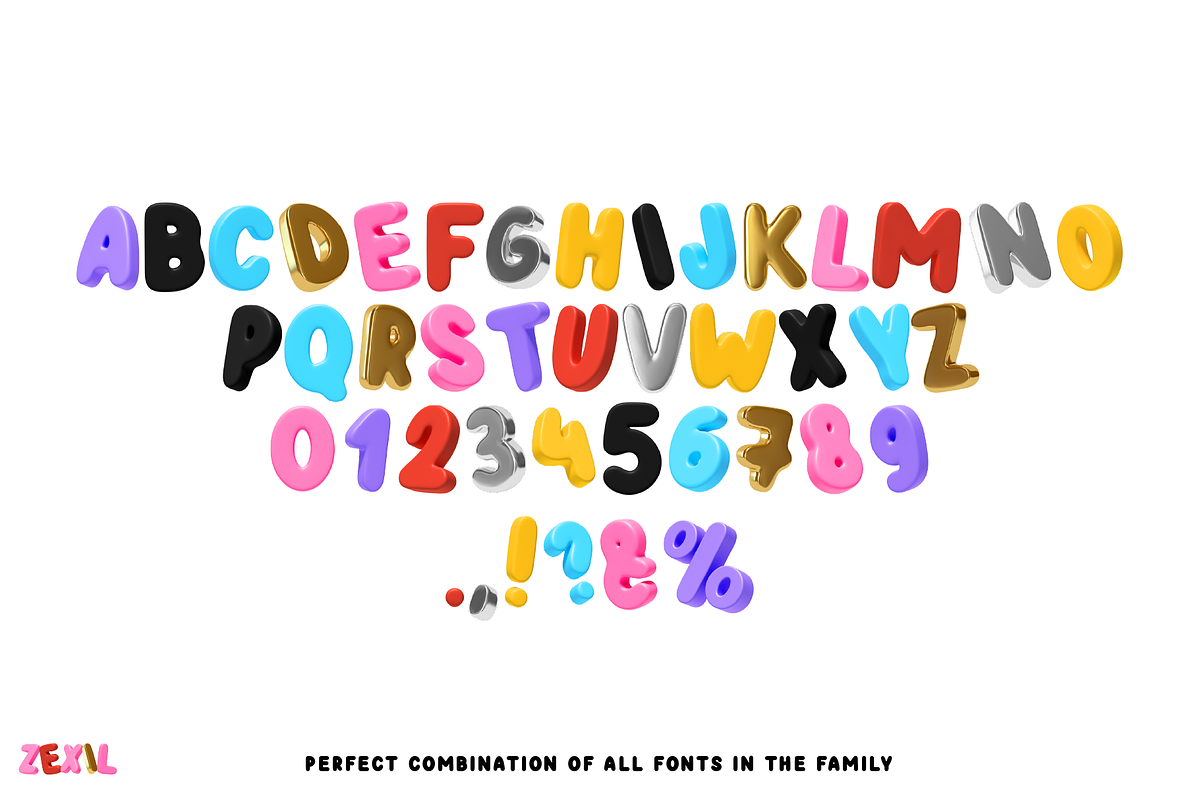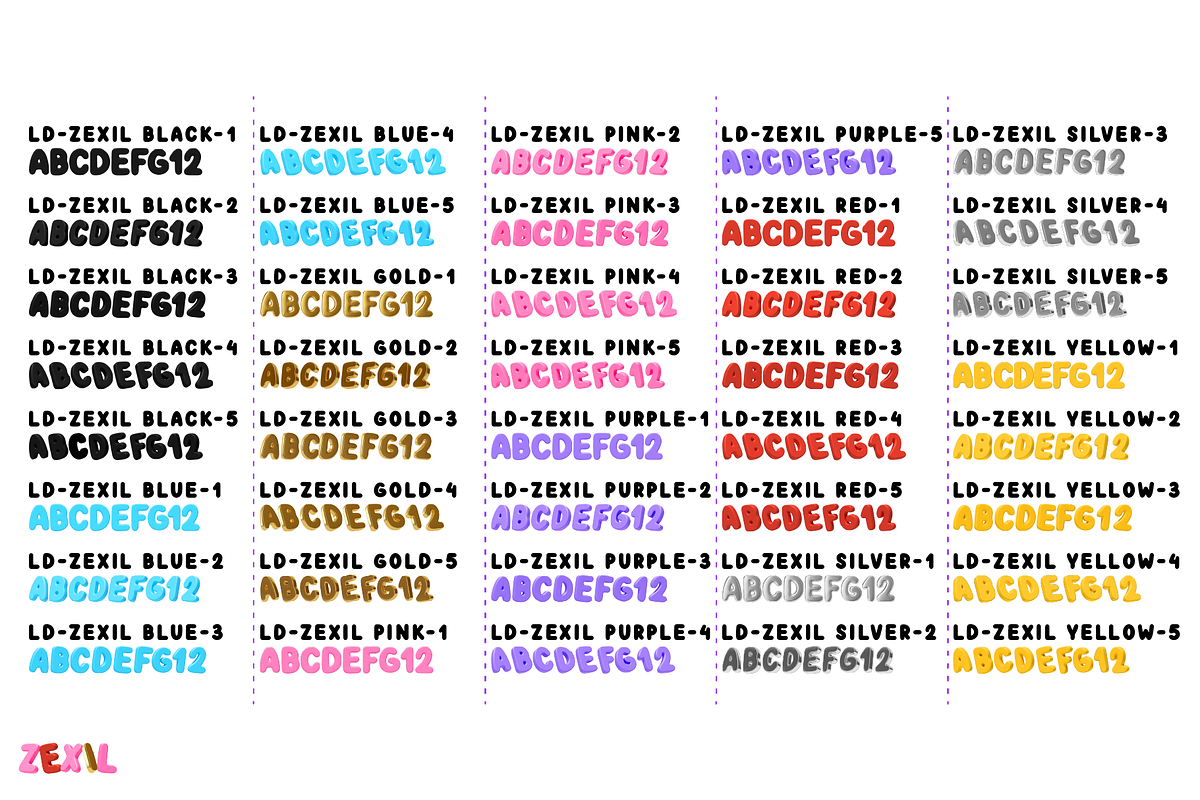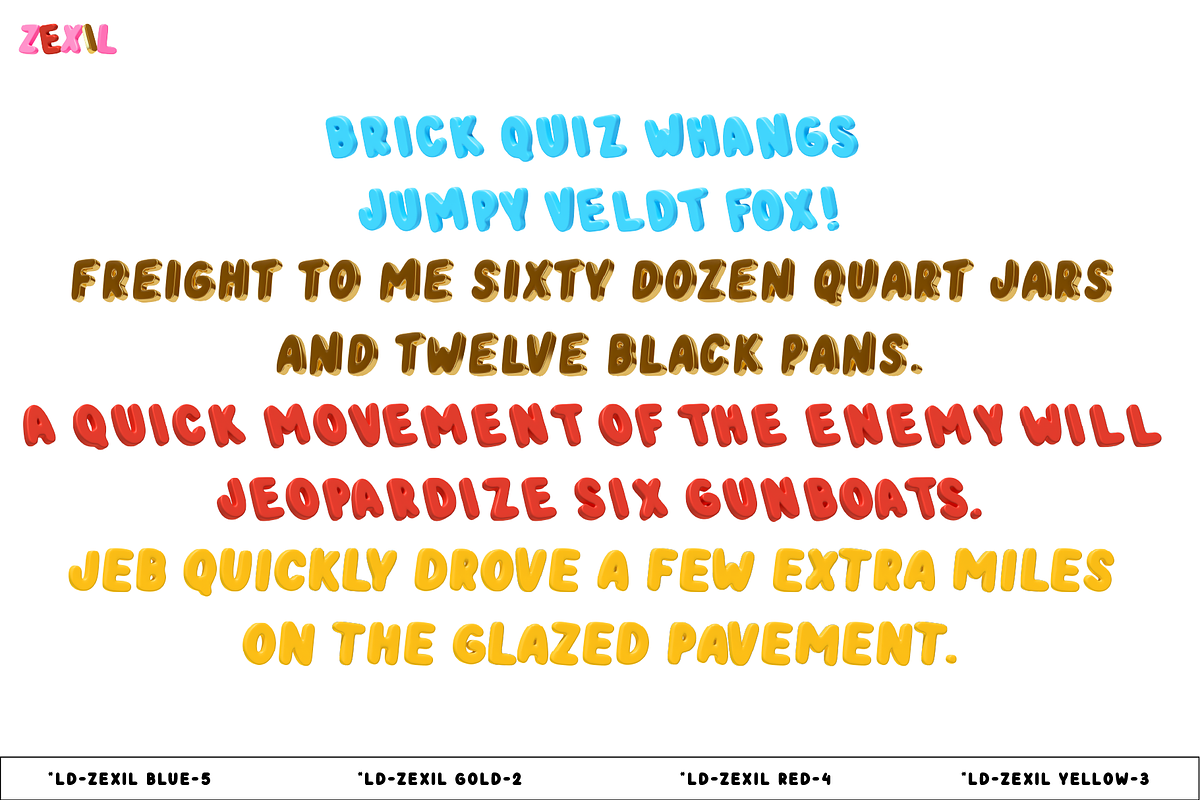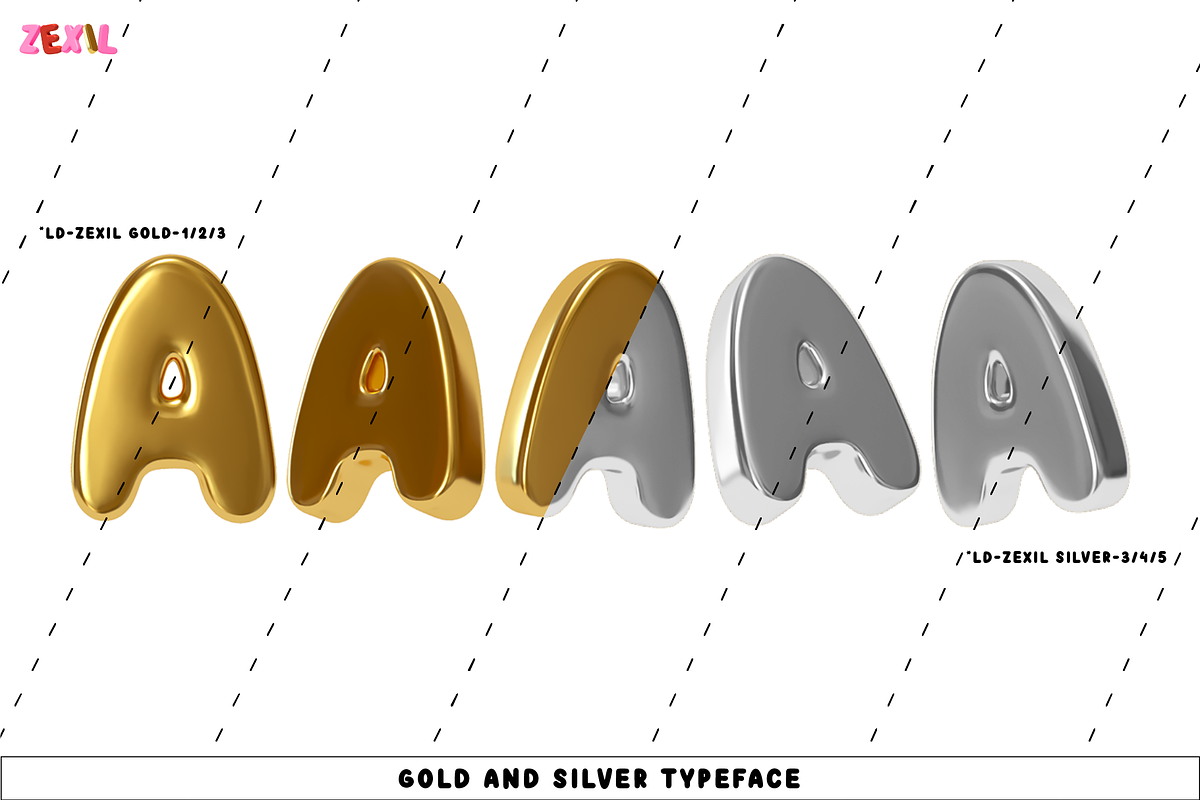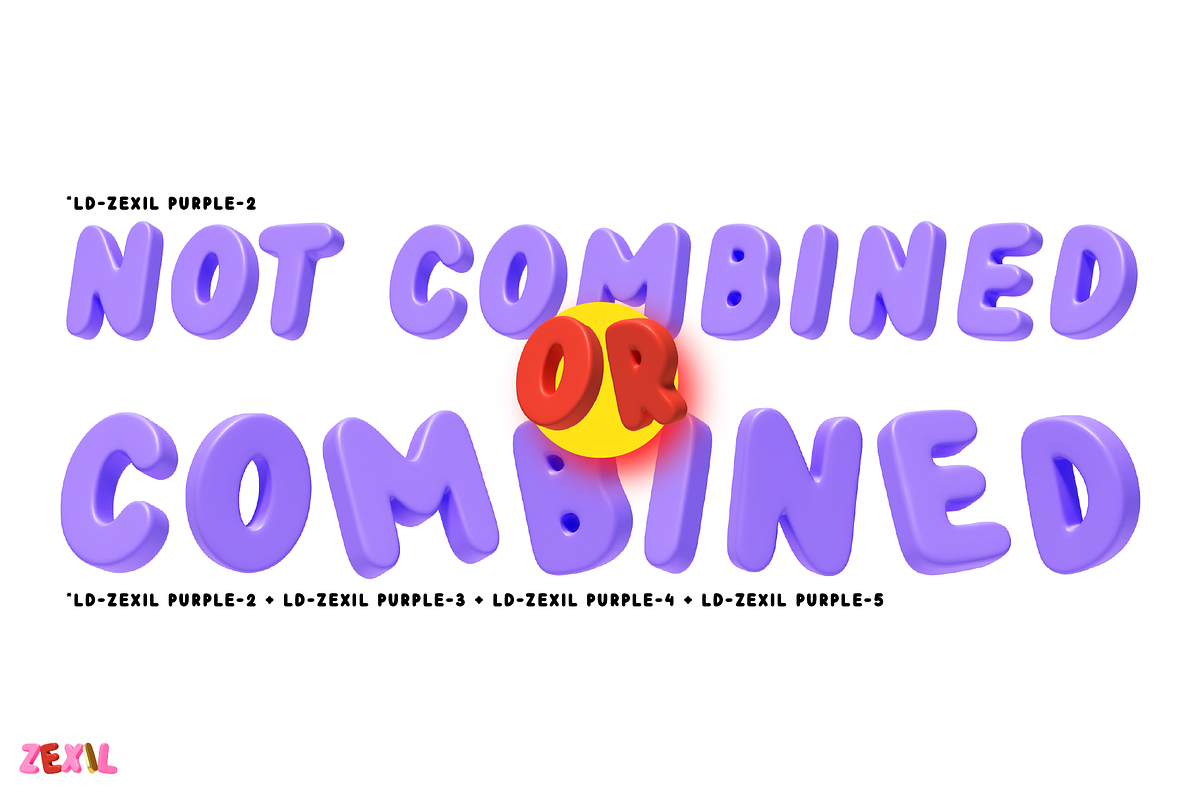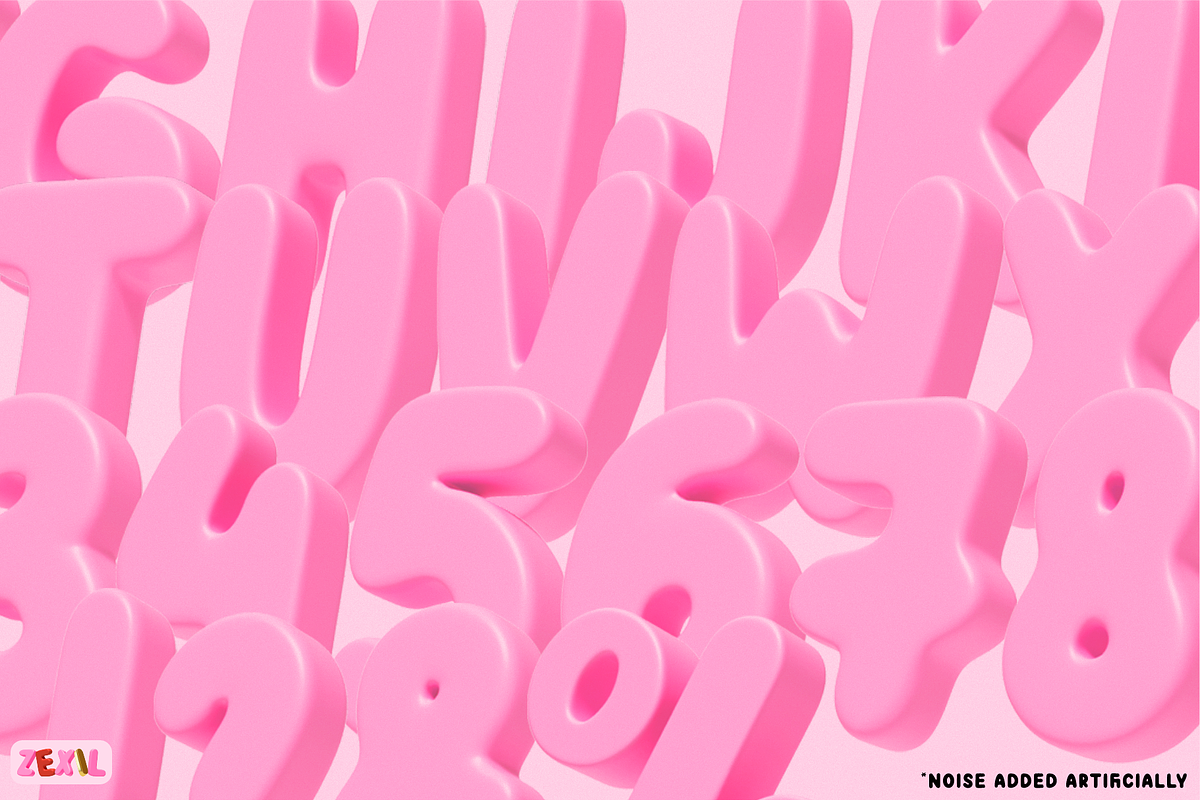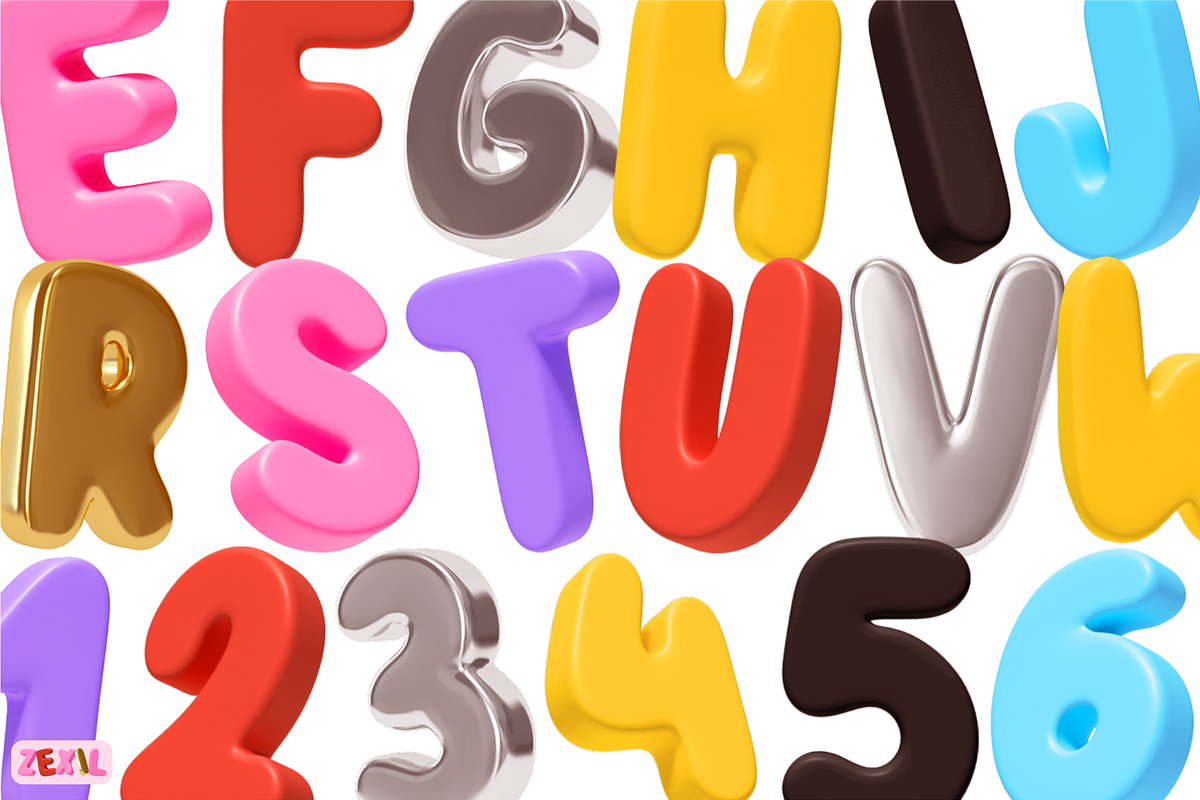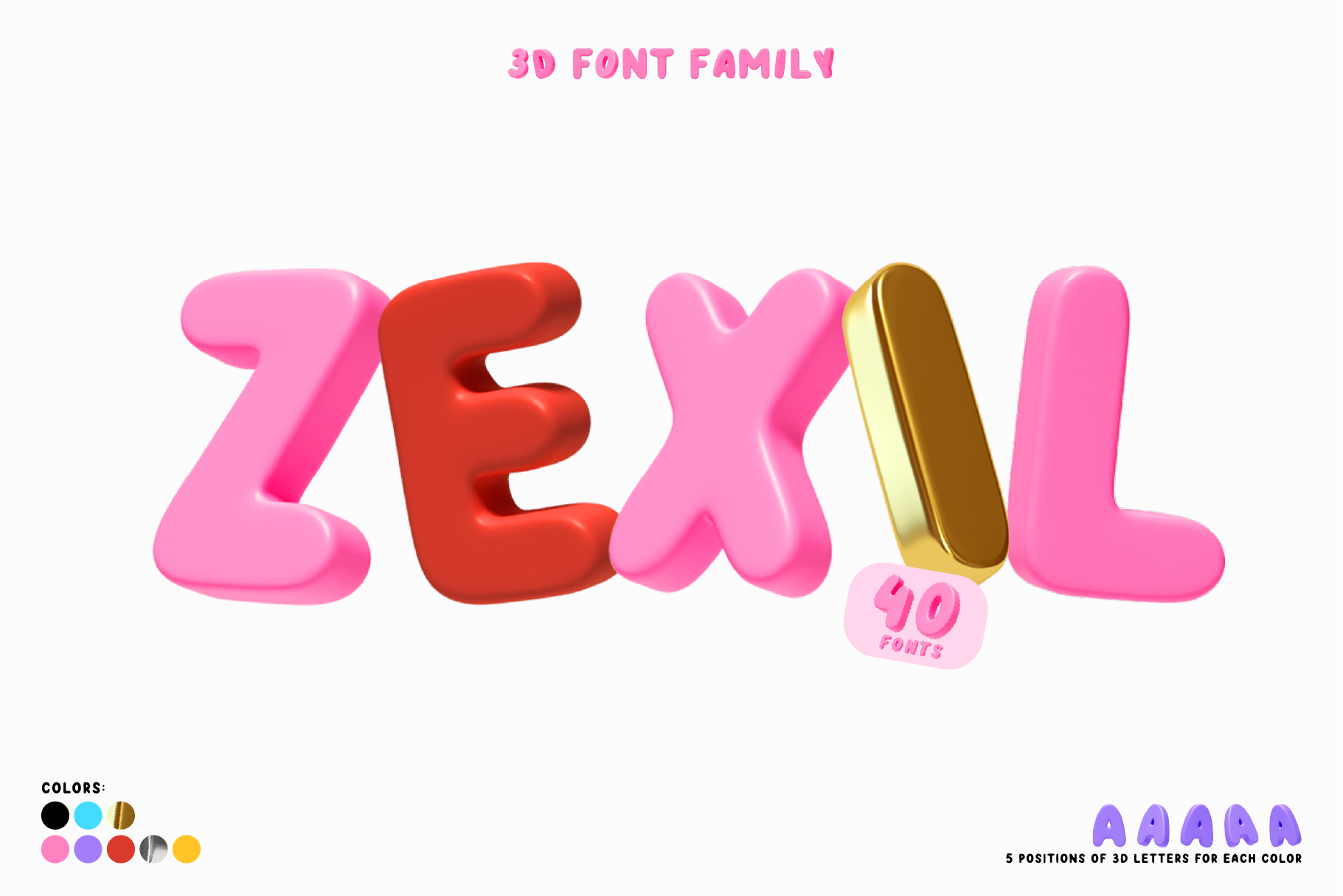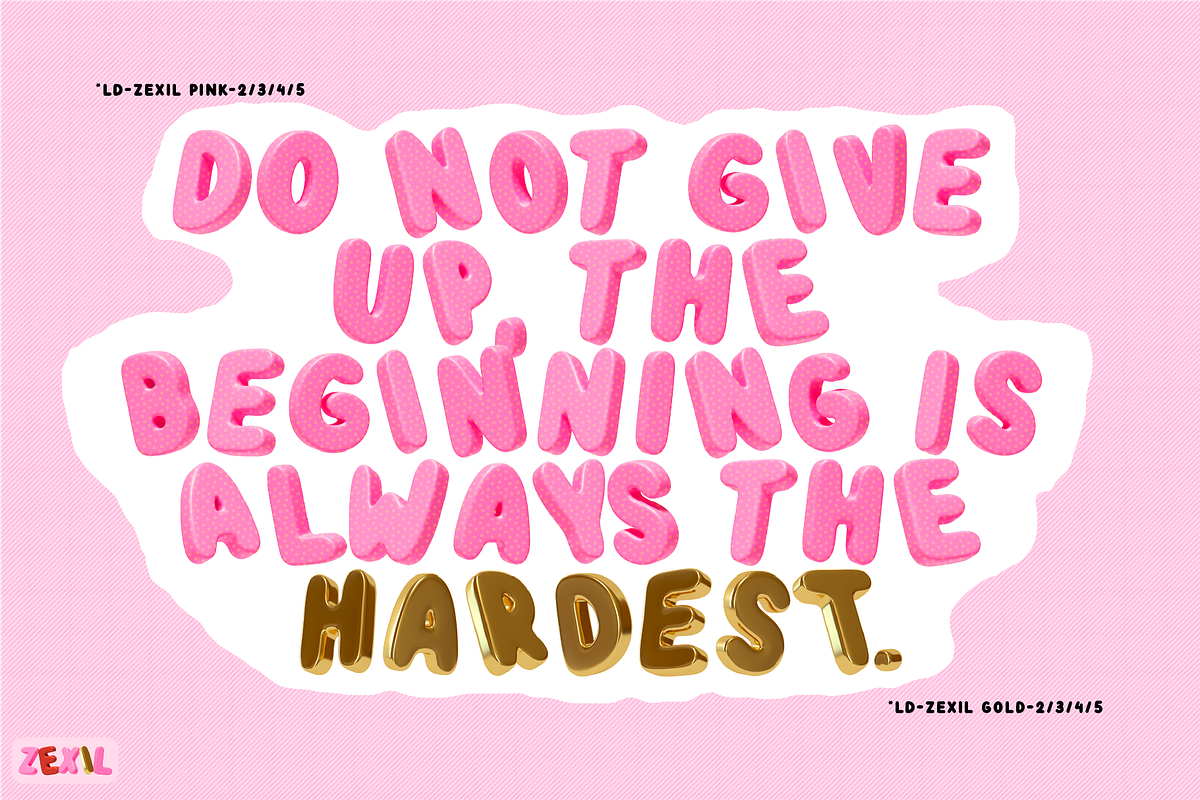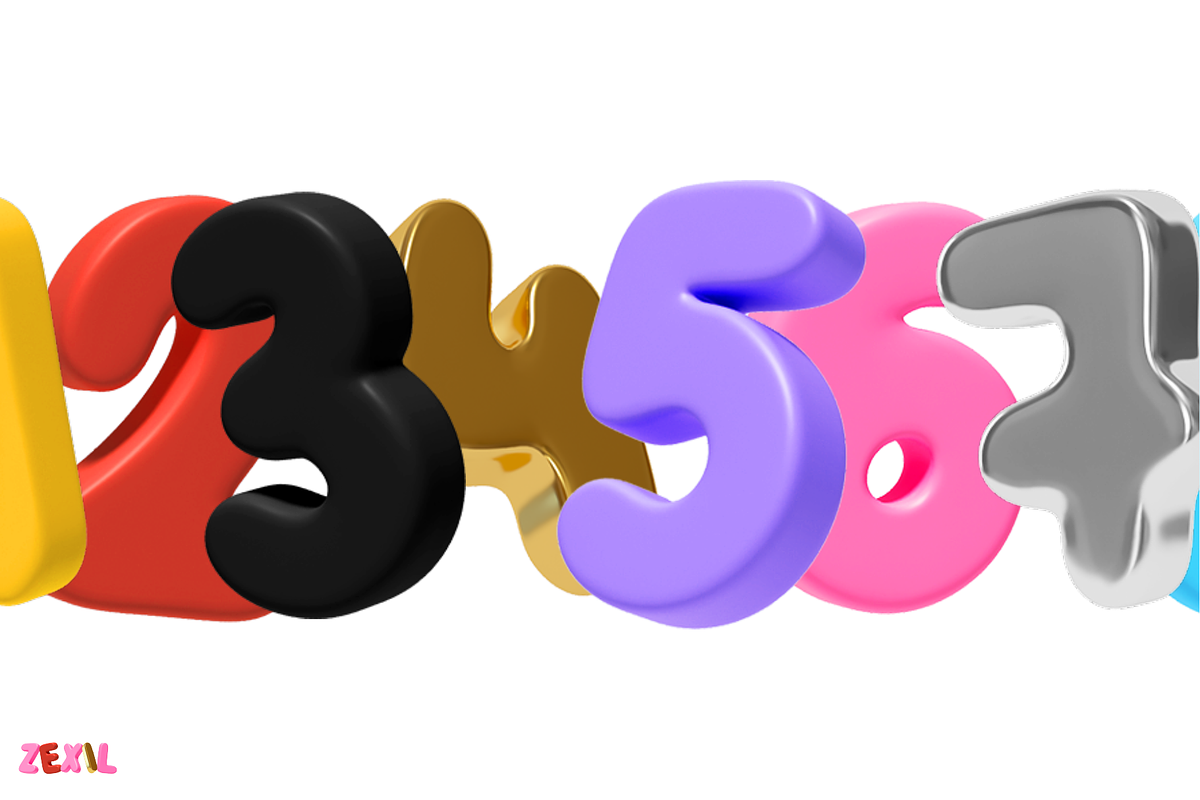
ZEXIL. 3D OTF SVG Font Family.
Create stunning visual impact with ZEXIL 3D fonts. Many ready-made color options, metallic and matte surfaces. 5 tilt options for each color. Easy to use at work. Just write your text and apply this font. Combine different letters and get an amazing visual effect. Have fun experiments)
Real 3D effect
5 positions for each colors
Different colors & materials
Uppercase and lowercase letters are the same
Kerning